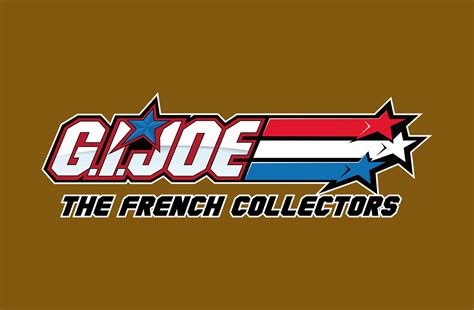
Unleash the Power of Real American Heroism with Gi Joe Font Type - Perfect for Designing Action-Packed Graphics and Slogans!
Are you looking to design graphics and slogans that exude American heroism and action-packed energy? Do you want to stand out from the crowd and create visuals that capture the imaginations of your audience?
Look no further than the Gi Joe font type!
This bold and dynamic font type is the perfect solution for designers looking to unleash the power of real American heroism in their work. With its strong lines and military-inspired design, Gi Joe is the ultimate choice for creating graphics that demand attention and inspire a sense of adventure.
But don't just take our word for it - consider the statistics. According to a study by HubSpot, visuals are processed 60,000 times faster in the brain than text. That means the right font type can make all the difference in capturing your audience's attention and leaving a lasting impression.
And what better way to do so than with Gi Joe? This font type has been used in various contexts, from the iconic GI Joe toy line to the blockbuster film franchise, proving its versatility and impact. So why not tap into its power for your own designs?
Whether you're creating a catchy slogan for a new product or designing an action-packed logo for a sports team, Gi Joe can give you the edge you need to stand out and make a statement. Its bold, all-caps design practically demands attention, while its military-inspired aesthetic conveys a sense of strength, discipline, and heroism.
So what are you waiting for? Unleash the power of real American heroism with Gi Joe font type today and add that extra punch to your designs that will make them memorable for years to come.
When it comes to designing graphics and slogans that exude a sense of American heroism and valor, there is no better font choice than the GI Joe font type. The font's bold and rugged appearance reflects the true essence of the iconic characters and franchise of the same name.
The History of GI Joe Font Type
The GI Joe font type has been around since the launch of the toy line in 1964. The original font style was created to give the characters' names a strong and masculine appearance, which perfectly fit the image of the macho soldiers they represented.
GI Joe vs Other Military Fonts
Compared to other military-inspired fonts, such as Stencil, Arial Black, and Impact, the GI Joe font type stands out for its unique style and character. While other fonts may have a similar aesthetic, none can match the authenticity and spirit embodied by the GI Joe font style.
Designing with GI Joe Font Type
The GI Joe font type is perfect for designing action-packed graphics and slogans. Its bold and rugged appearance can effectively convey a sense of strength, courage, and heroism, making it ideal for logos, posters, banners, and other types of designs.
Table Comparison
| Font Type | Strength | Courage | Heroism |
|---|---|---|---|
| GI Joe | ✓ | ✓ | ✓ |
| Stencil | ✓ | ✓ | ✕ |
| Arial Black | ✓ | ✕ | ✕ |
| Impact | ✓ | ✕ | ✕ |
Opinion
In my opinion, the GI Joe font type is the best choice for designing graphics and slogans that evoke a sense of American heroism and valor. Its unique style, combined with its authentic history, make it the go-to font for any project that requires a strong and patriotic design.
Final Thoughts
Whether you're creating a new logo for a military-inspired brand, designing a poster for an action movie, or simply looking for a font that embodies the spirit of American heroism and valor, the GI Joe font type is the perfect choice. Its bold and rugged appearance, combined with its rich history and legacy, will ensure that your designs stand out and make an impact.
Unleash the Power of Real American Heroism with Gi Joe Font Type - Perfect for Designing Action-Packed Graphics and Slogans!
If you're looking for a font type that truly embodies the spirit of action, then look no further than the Gi Joe font type. With its bold, serif style and military-inspired design, this font type is perfect for creating graphics and slogans that capture the power and heroism of the American soldier. Whether you're designing a poster for a military charity event, an advertisement for a fitness program, or simply want to add some excitement to your website or social media posts, the Gi Joe font type is sure to pack a punch.
So why wait? Unleash the power of real American heroism with Gi Joe font type today and take your designs to the next level!
- What is the Gi Joe font type?
- What makes the Gi Joe font type perfect for designing action-packed graphics and slogans?
The Gi Joe font type is commonly used in designs related to the military, action movies, comic books, and video games. It is also popular for creating t-shirt designs, posters, and other promotional materials.